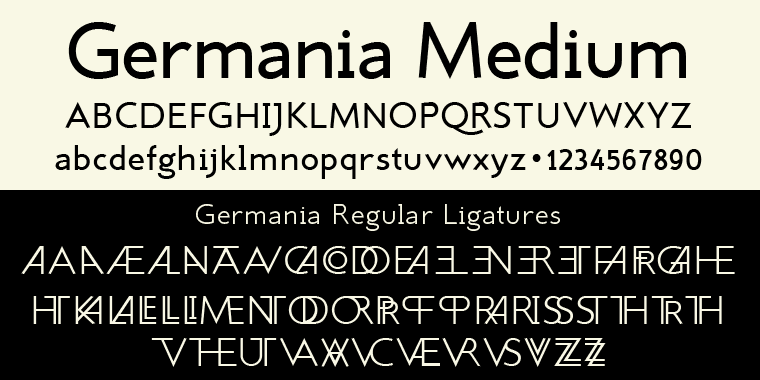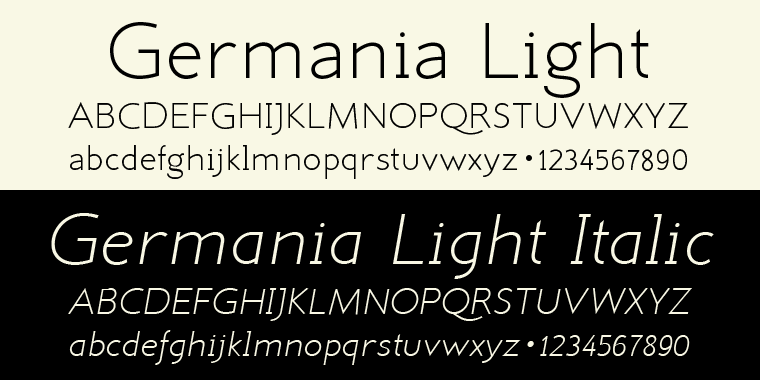
Germania
Germania is a novelty and sans serif font family. This typeface has eleven styles and was published by Wiescher-Design.
Germania is a Sans font based on classic roman proportions and forms based on my Imperia font.
But I added that distinct, rigid, no-nonsense German touch.
This monoline font with its classic proportions and personality is good for lots of occasions.
And – I designed three »real« italic typefaces – not just slanting the straight ones.
I corrected the stroke thicknesses and changed the lowercase a, e, f, g and q.
I put in a collection of very interesting uppercase ligatures for free.